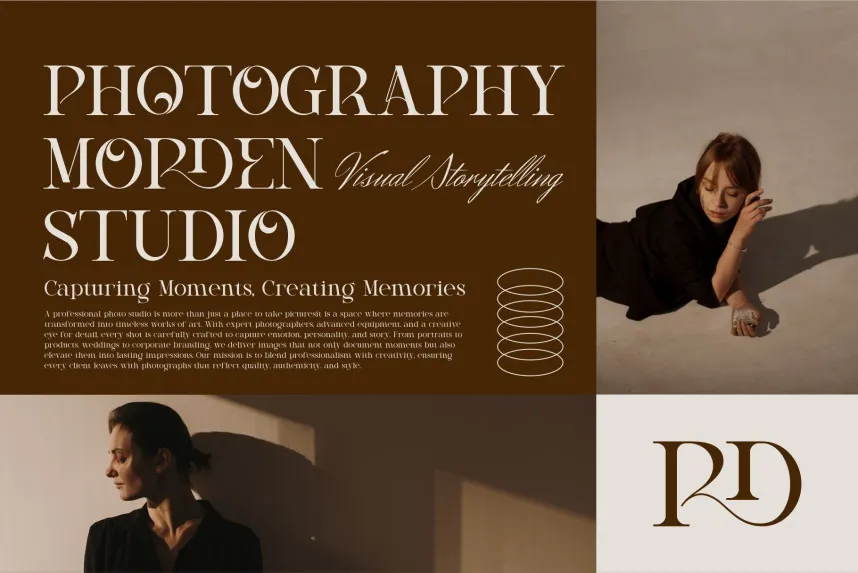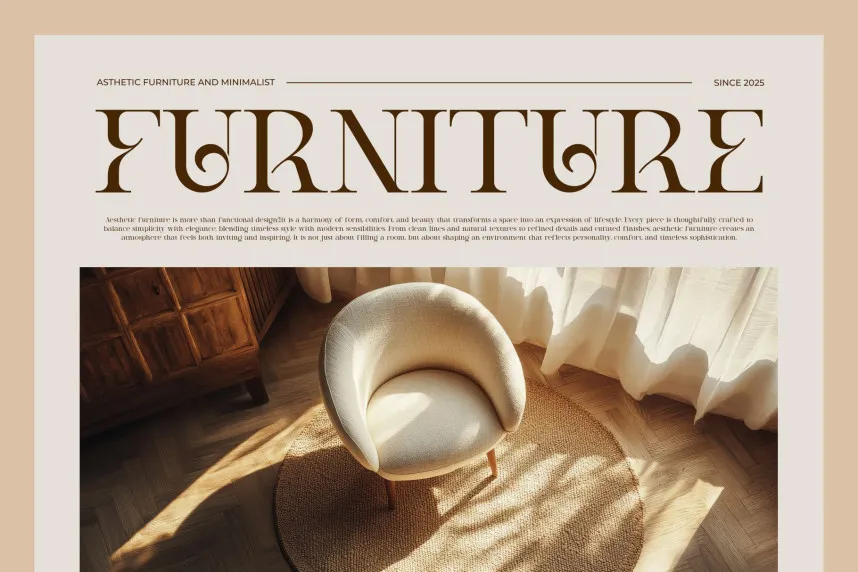
Krose Narovs Font is a stylish and modern typeface designed for creativity and expression. It has bold shapes and smooth corners that make text look fresh and eye-catching.
The design combines modern aesthetics with artistic flow. Each letter is made to look unique but still balanced, making it suitable for logos and statement titles.
This font fits perfectly in modern branding, posters, or digital art. It helps designs look original and futuristic while staying readable and clean.
Its strong yet simple structure gives a feeling of creativity and modern design. The letters are shaped to attract attention while maintaining elegance and harmony.
Designers often use it to show energy, innovation, and modern ideas. It looks great on social media graphics, music covers, and creative packaging.
Usage Perfect for logos, posters, and creative headlines
This is a bold and flexible font that mixes creativity with modern style. It is perfect for anyone who wants to give their designs a strong visual impact.